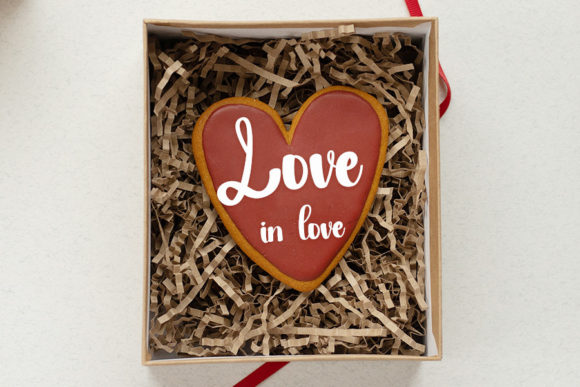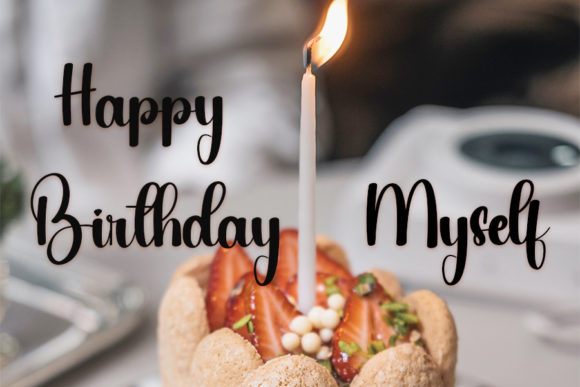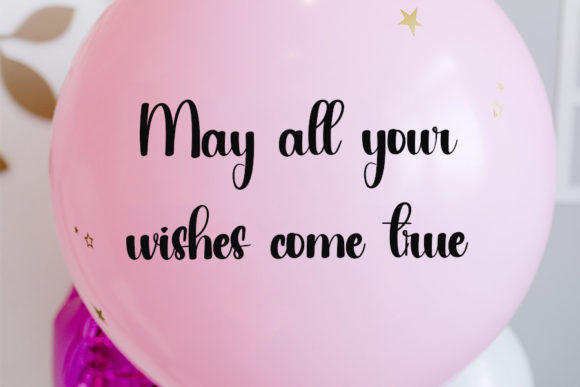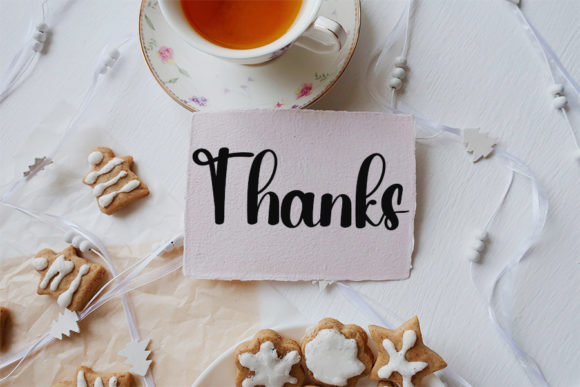
Biscuit Font: A Friendly Handwritten Font for Your Creative Projects
Are you a designer or crafter looking for a unique and elegant font to add a personal touch to your projects? Look no further than the Biscuit Font! This friendly handwritten font is carefully designed to become a true favorite among creative enthusiasts. With its classy calligraphic influences and contemporary feel, Biscuit Font is the perfect addition to any design or crafting project.
What Makes Biscuit Font Special?
Biscuit Font is a beautifully crafted handwritten font that exudes warmth and friendliness. Its carefully designed letters and flowing strokes make it perfect for a variety of creative projects, from invitations and greeting cards to branding and packaging. The font’s classy calligraphic influences give it a sophisticated and elegant feel, while its contemporary twist keeps it fresh and modern.
Key Features of Biscuit Font
- Handwritten with love: Biscuit Font is carefully crafted with a personal touch, making it perfect for designs that require a friendly and approachable feel.
- Classy calligraphic influences: The font’s elegant and sophisticated influences make it perfect for designs that require a touch of luxury and refinement.
- Contemporary and fresh: Biscuit Font’s modern twist keeps it fresh and up-to-date, making it perfect for designs that require a modern feel.
How to Use Biscuit Font in Your Projects
Using Biscuit Font in your projects is easy! Here are a few ideas to get you started:
- Invitations and greeting cards: Add a personal touch to your invitations and greeting cards with Biscuit Font’s friendly and elegant feel.
- Branding and packaging: Use Biscuit Font to create a unique and memorable brand identity that stands out from the crowd.
- Handmade crafts: Add a touch of elegance and sophistication to your handmade crafts, such as knitting patterns, sewing projects, or paper crafts.
- Digital designs: Use Biscuit Font in your digital designs, such as social media graphics, blog posts, or website headers.
Tips and Tricks for Working with Biscuit Font
Here are a few tips and tricks to help you get the most out of Biscuit Font:
- Experiment with font sizes: Biscuit Font looks great in a variety of font sizes, from large and bold to small and delicate.
- Pair with other fonts: Try pairing Biscuit Font with other fonts to create a unique and interesting contrast.
- Use in combination with images: Biscuit Font looks great in combination with images, such as photographs or illustrations.
In conclusion, Biscuit Font is a friendly and elegant handwritten font that is perfect for designers and crafters looking to add a personal touch to their projects. With its classy calligraphic influences and contemporary feel, Biscuit Font is sure to become a true favorite among creative enthusiasts. Whether you’re creating invitations, branding, or handmade crafts, Biscuit Font is the perfect addition to any design or crafting toolkit.